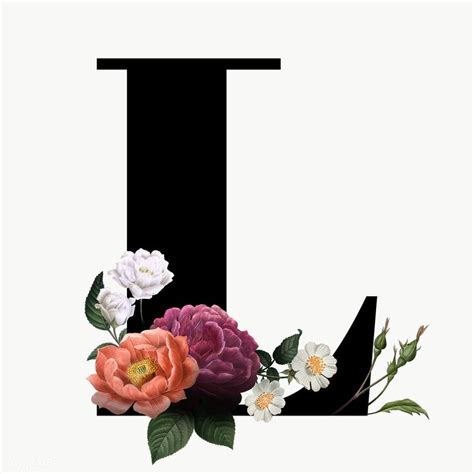
Best Letter Fonts for Logos & Branding
Readers, have you ever wondered what makes some logos instantly recognizable and memorable? A critical component is the choice of font, and it plays a crucial role in brand identity and visual appeal. Selecting the right letter font for your logo can be a game-changer. It’s not just about aesthetics; it’s about conveying your brand's personality, values, and message. Luckily as an SEO blog post writer with years of experience, I have analyzed this question to help you choose the best font for your logo and branding strategy.
Exploring the World of Logo Fonts: Key Factors to Consider
Choosing the right font for your logo is a crucial decision, as it significantly impacts your brand’s visual identity. Several key factors influence this selection.
First, consider **readability**. Your logo should be easily readable, even at small sizes. Next, think about **versatility**. Ideally, the font should work well across different media, from websites and social media to printed materials. It’s essential to choose a font that aligns with your brand’s **personality** and **values**. If your brand is modern and innovative, a sans-serif font like Arial or Helvetica might be a good choice. In contrast, a traditional brand might opt for a serif font like Times New Roman or Garamond.
Understanding Font Categories
Let’s delve into the different categories of fonts to understand their characteristics and potential applications. Each category offers unique qualities that can shape your brand’s visual identity.
Serif Fonts
Serif fonts, characterized by small strokes, or “serifs,” at the ends of letters, have a classic and timeless appeal. They tend to convey a sense of tradition, sophistication, and trustworthiness. Serif fonts are commonly used for logos in industries like finance, law, and publishing. Popular serif fonts include Times New Roman, Garamond, and Georgia.
Sans-Serif Fonts
Sans-serif fonts, lacking the serifs found in serif fonts, offer a clean and modern feel. They are often associated with simplicity, clarity, and modernity. They are versatile and work well for various branding needs, from tech companies to fashion brands. Popular sans-serif fonts include Helvetica, Arial, and Verdana.
Script Fonts
Script fonts, mimicking handwritten cursive, exude elegance, style, and personality. They can add a touch of charm and sophistication to logos. However, they might not be suitable for every brand, as they can be difficult to read, particularly at small sizes. Popular script fonts include Brush Script, Pacifico, and Allura.
Display Fonts
Display fonts are bold and eye-catching, making a statement with their unique and often unconventional designs. They are designed to be used for headlines and titles, adding visual impact to logos. While not ideal for large blocks of text, display fonts can be effectively incorporated into logos to create a memorable and impactful brand identity. Popular display fonts include Impact, Chalkboard, and Bebas Neue.
Choosing the Right Font for Your Logo: A Detailed Guide
To guide you through the process of choosing the best font for your logo, we’ll break it down into key steps to help you make an informed decision.
Understanding Your Brand’s Identity
Before diving into font options, it’s crucial to understand your brand’s core identity. What are your brand’s values, personality, and target audience? This will help narrow down the font choices and ensure the selected font effectively communicates your brand’s message.
Analyzing Industry Standards
Researching industry norms can provide valuable insights. Examine the logos of companies in your industry to understand the prevailing font trends and styles. Observe what works well and what doesn’t, inspiring your own logo font selection.
Exploring Font Combinations
Consider using multiple fonts to create a unique and visually compelling logo. This involves choosing fonts that complement each other while conveying the desired message. For instance, a serif font paired with a sans-serif font can create a balanced and visually appealing combination.
Testing and Experimentation
Once you’ve narrowed down your font choices, create drafts and test them on various media, including websites, social media, and printed materials. Analyze how the fonts look across different devices and resolutions. Gather feedback from your target audience to determine the most effective and appealing font for your logo.
Best Letter Fonts for Logos and Branding: Top Picks
Let’s explore some of the best letter fonts for logos and branding, categorized by their style and application.
Serif Fonts for a Timeless Appeal
Serif fonts, known for their classic and elegant look, are an excellent choice for brands seeking to convey professionalism, tradition, and sophistication.
- **Times New Roman:** This classic serif font is widely recognized, offering a sense of reliability and authority. It’s perfect for brands in the finance, law, and publishing industries.
- **Garamond:** Another popular serif font, Garamond exudes sophistication and elegance. It’s a versatile font that works well for various branding needs, from luxury brands to publishing houses.
- **Georgia:** Known for its readability and sharp serifs, Georgia is a versatile font that blends elegance and practicality. It’s an excellent choice for brands seeking a balance between tradition and modernity.
Sans-Serif Fonts for a Modern Touch
Sans-serif fonts, characterized by their clean and simple design, are ideal for brands aiming for a modern, minimalist, and approachable feel.
- **Helvetica:** This iconic sans-serif font is synonymous with modernity and simplicity. Its clean lines and lack of serifs create a sense of clarity and professionalism, making it a popular choice for tech companies, fashion brands, and corporate logos.
- **Arial:** Another versatile sans-serif font, Arial is widely used for its readability and accessibility. It’s a solid choice for brands seeking a clean and contemporary look.
- **Verdana:** Verdana is known for its exceptional readability, even at small sizes. It’s an excellent choice for websites and digital platforms where readability is paramount.
Script Fonts for a Touch of Elegance
Script fonts, mimicking handwritten cursive, add a touch of charm and sophistication to logos. They work well for brands seeking to convey elegance, personality, and a sense of artistry.
- **Brush Script:** This classic script font exudes elegance and personality. It’s a versatile font that works well for various branding needs, from wedding invitations to beauty products.
- **Pacifico:** This playful script font adds a touch of whimsy and personality to logos. It's a great option for brands targeting a younger audience or those seeking a casual and fun vibe.
- **Allura:** This elegant script font adds a touch of sophistication and class to logos. It’s an excellent choice for brands that want to convey a premium feel, such as fashion brands or jewelry stores.
Display Fonts for a Bold Statement
Display fonts, known for their bold and eye-catching designs, are ideal for logos that need to make a statement. They work well for brands seeking to convey power, energy, and a sense of individuality.
- **Impact:** Impact is a bold and impactful font that makes a strong visual statement. It’s an excellent choice for brands seeking to convey a sense of power, energy, and authority.
- **Chalkboard:** This playful display font adds a touch of whimsy and charm to logos. It’s a great option for brands targeting a younger audience or those seeking a casual and fun vibe.
- **Bebas Neue:** This modern and geometric display font adds a touch of sophistication and elegance to logos. It’s an excellent choice for brands that want to convey a sense of innovation and modernity.
Understanding Font Licensing and Usage
It’s essential to understand font licensing and usage rights before incorporating fonts into your logo. Licensing agreements determine how you can use the font. Most fonts are copyrighted, and using them without permission can lead to legal issues.
Some fonts offer free licenses, while others require purchase or subscription. Always review the terms and conditions of the font license before using it for your logo.
Tips for Choosing the Best Font for Your Logo
To ensure you select the perfect font for your logo, consider these tips:
- Keep it simple: Choose a font that’s easy to read and understand, even at small sizes.
- Consider your target audience: Choose a font that appeals to your target audience and aligns with your brand’s personality.
- Test different fonts: Experiment with various fonts until you find one that visually represents your brand’s message and values.
- Seek professional guidance: If you’re unsure about font selection, consider seeking professional help from a graphic designer or branding expert.
FAQ: Best Letter Fonts for Logos & Branding
How do I choose the right font for my logo?
Choosing the right font for your logo involves understanding your brand’s identity, analyzing industry standards, exploring font combinations, and testing various options. Ultimately, the ideal font should align with your brand’s values, target audience, and overall message.
What are some popular fonts for logos?
Popular fonts for logos include Times New Roman, Garamond, Georgia (serif); Helvetica, Arial, Verdana (sans-serif); Brush Script, Pacifico, Allura (script); Impact, Chalkboard, Bebas Neue (display).
What factors should I consider when choosing a font for my logo?
Key factors to consider include readability, versatility, personality, value alignment, and industry standards. The chosen font should be easily readable, adaptable to various media, and effectively communicate your brand’s message and values.
Selecting the best letter fonts for logos and branding is a crucial step in building a successful brand identity. By understanding the different font categories, analyzing industry standards, and considering your brand’s core values and target audience, you can make an informed decision that will set your brand apart. Remember, the right font can make a significant difference in how your logo is perceived and remembered. If you need additional help or have more questions, explore other articles on our site for more information.